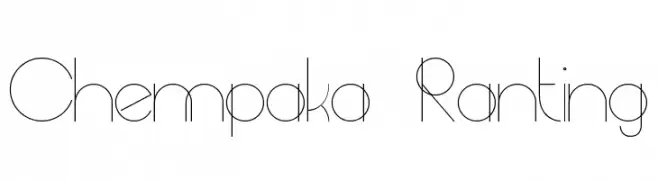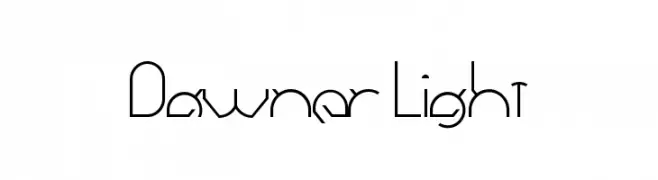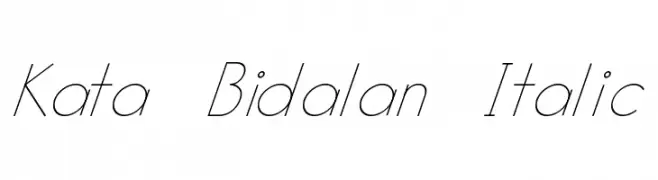
A modern, geometric font with clean lines and consistent stroke widths.
A modern, minimalist font with thin, elongated strokes and geometric structure.
A sleek, italicized font with a modern and elegant style.
A sleek, modern font with elongated, thin strokes and a sophisticated appearance.
A tall, narrow font with a modern, geometric style.
A tall, narrow font with consistent stroke thickness and a modern, streamlined appearance.
A modern, geometric font with a tall, narrow structure and consistent stroke width.
A modern, geometric font with elongated, narrow characters and rounded edges.
A modern, geometric font with clean lines and a minimalist design.